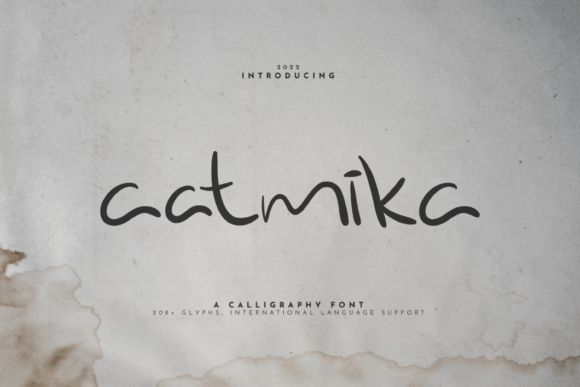
Introducing Aatmika Script Font: A Journey of Elegance and Charm
Aatmika, the enchanting calligraphy script font, is meticulously crafted to bring your designs to life with its graceful lines and mesmerizing curves. Designed in the year of 2022, this font is ready to transform your projects into aesthetic wonders.
Aatmika is the perfect choice for your invitation cards, posters, social media posts, lettering projects, book headings, and more. Its versatility knows no bounds, allowing you to create designs that capture the essence of joy, celebration, and festive spirit.
With Aatmika, you can effortlessly craft Christmas letters that radiate warmth and charm. Its elegant strokes and playful curves will make your words dance on the page, conveying your heartfelt greetings and messages with a touch of sophistication.
Aatmika's ability to evoke emotions is truly remarkable. Whether you're designing marketing materials, product packaging, or personal projects, this font has the power to captivate your audience and leave a lasting impression.
But Aatmika isn't just about aesthetics; it's also incredibly user-friendly. Its smooth flow and legible characters make it easy to work with, ensuring that your creative vision is brought to life effortlessly.
So, step into the world of Aatmika and let your imagination soar. Its timeless beauty and endless possibilities will inspire you to create designs that are truly exceptional. Aatmika is more than just a font; it's an invitation to unleash your creativity and create something truly magical.